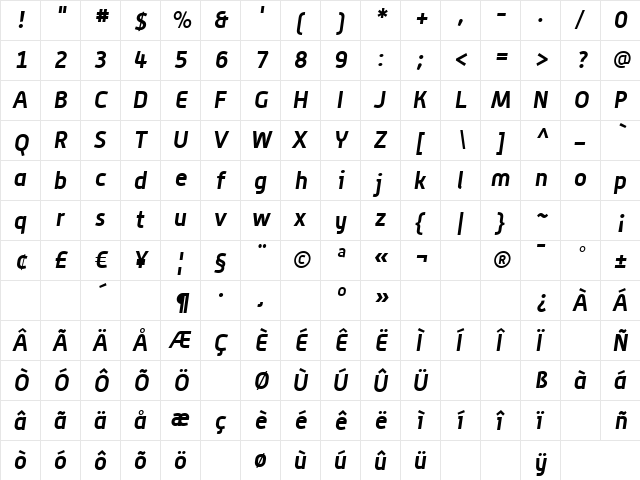
Alwyn BoldOblique Font Preview
Alwyn BoldOblique
Design Context for Alwyn Typeface
Alwyn takes a measured approach to typography — its balanced proportions and neutral character make it a reliable workhorse for both digital and print work. Its italic angle brings a sense of urgency and motion to the letterforms. The heavy weight commands attention and anchors typographic hierarchies.